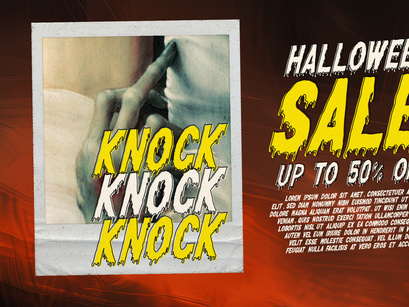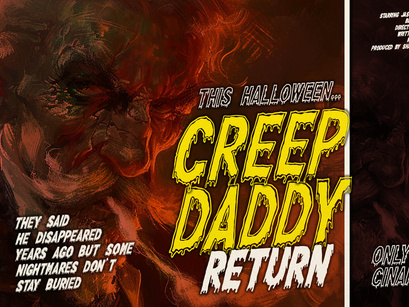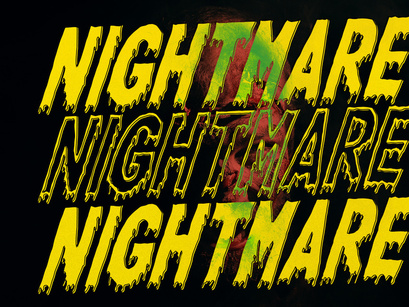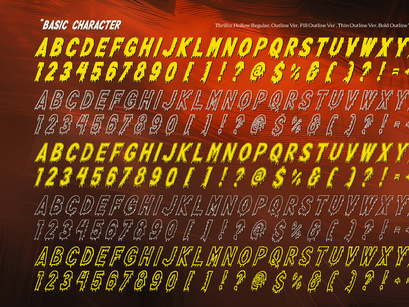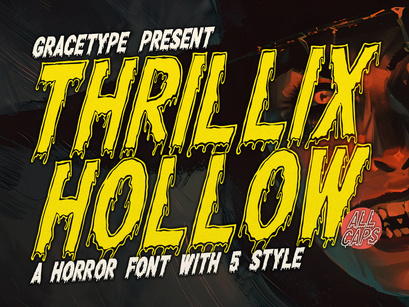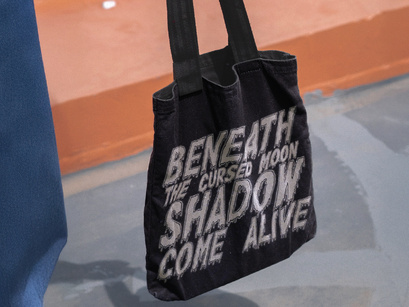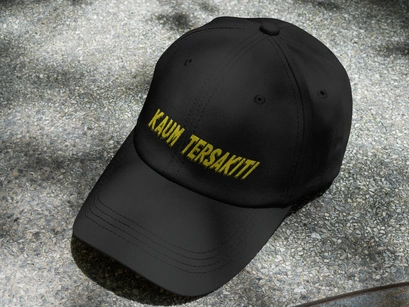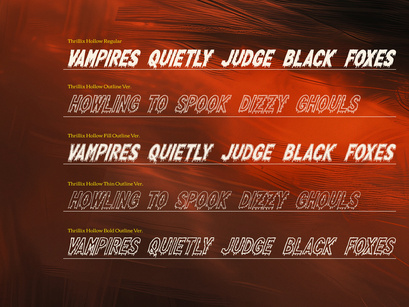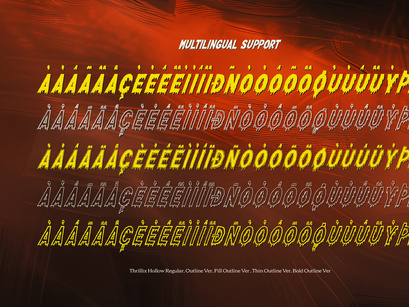
Thrillix Hollow | Horror 5 Style Font
Thrillix Hollow Bold Outline
Thrillix Hollow Outline
Thrillix Hollow Fill Outline
Thrillix Hollow | Horror 5 Style Font, from Gracetypestudio, suitable for any projects such as: logos, branding projects, homeware designs, product packaging, mugs, quotes, posters, shopping bags, t-shirts, book covers, name card, invitation cards, greeting cards, label, photography, watermark, special events, and all your other lovely projects that need a Horror taste.